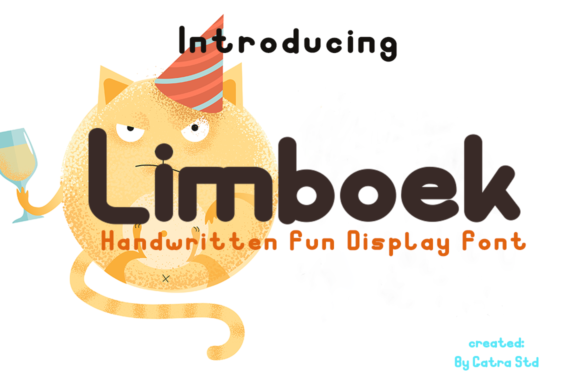
Embark on a typographic journey with Limboek Font, a display font that exudes vintage charm and captivating boldness. Crafted with meticulous attention to detail by Gatra Std., this font is not just a collection of letters, but a gateway to boundless creativity.
Limboek Font's thick, retro-inspired strokes evoke a sense of nostalgia and authenticity. It's perfect for adding a touch of timeless elegance to your designs, whether you're creating eye-catching labels, memorable logos, or striking branding elements.
Unleash your imagination and transport your audience back in time with Limboek Font. Its vintage aesthetic adds a touch of sophistication and intrigue to any project, making it stand out from the ordinary. Stand shoulder to shoulder with design giants as you create timeless masterpieces that resonate with your audience.
With Limboek Font, you're not just downloading a font; you're stepping into a world of creative possibilities. Let your imagination run wild as you explore the endless applications of this versatile font. From retro-inspired posters to eye-catching social media graphics, Limboek Font is your trusted companion in the realm of visual storytelling.
Don't settle for ordinary fonts that blend into the background. Embrace the power of Limboek Font today and unlock a world of creative expression. Its bold strokes and vintage charm will breathe life into your designs, leaving a lasting impression on your audience.